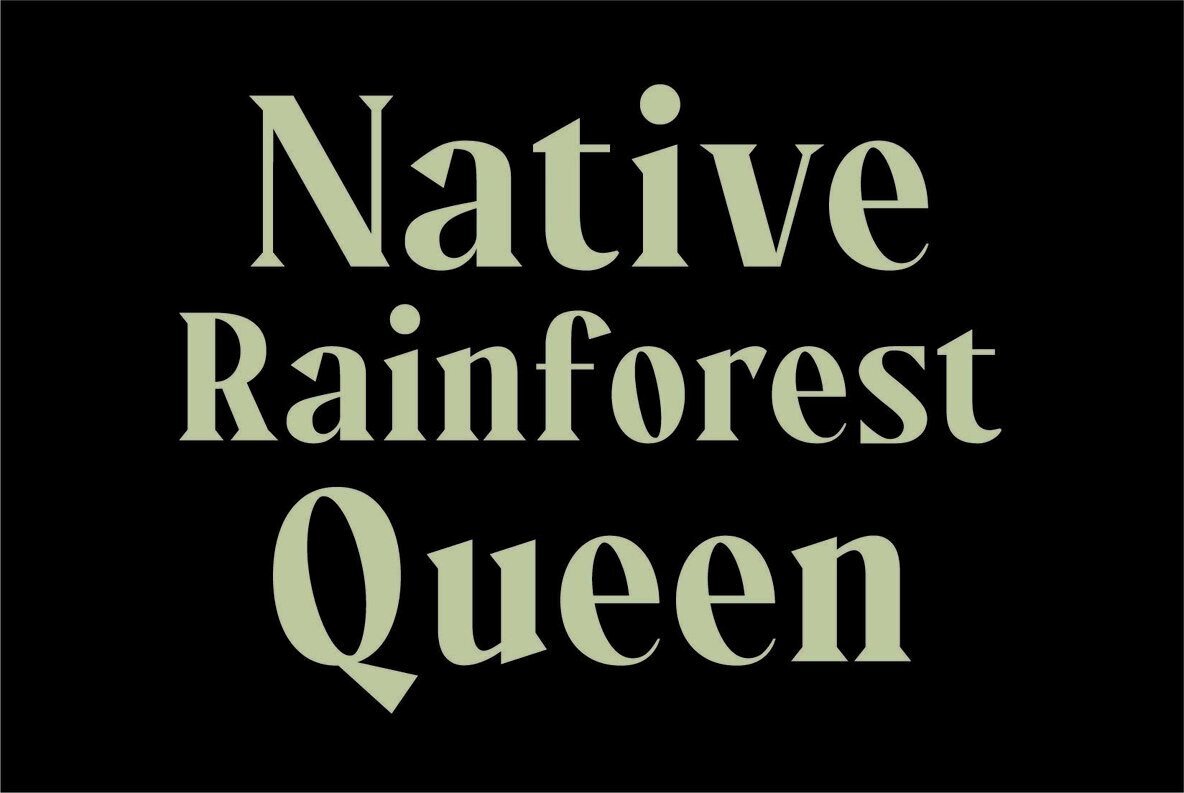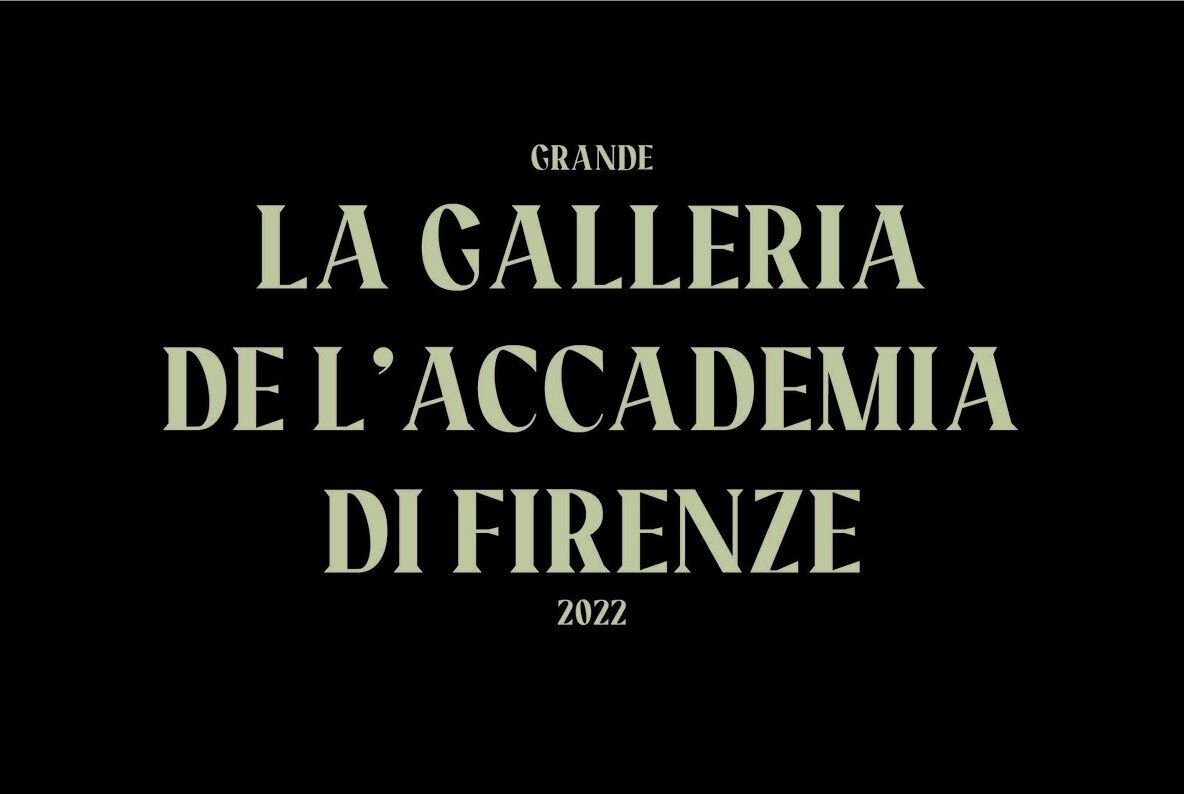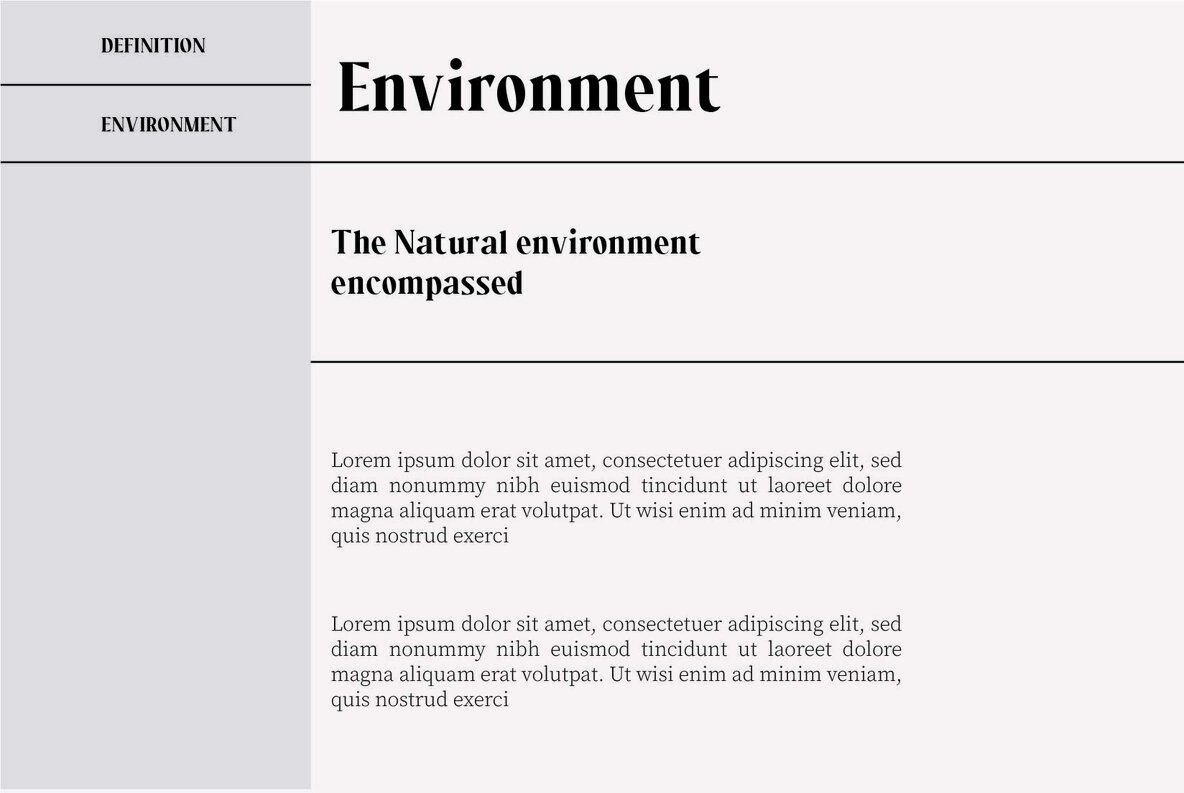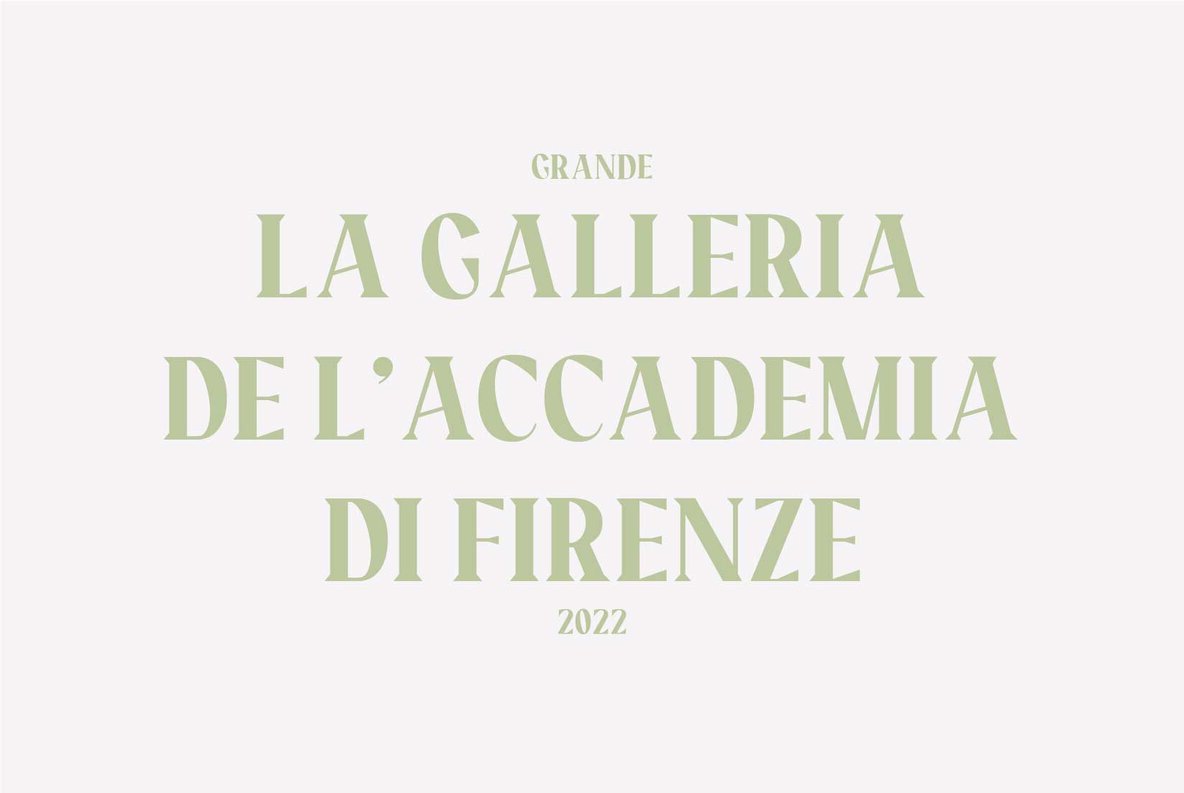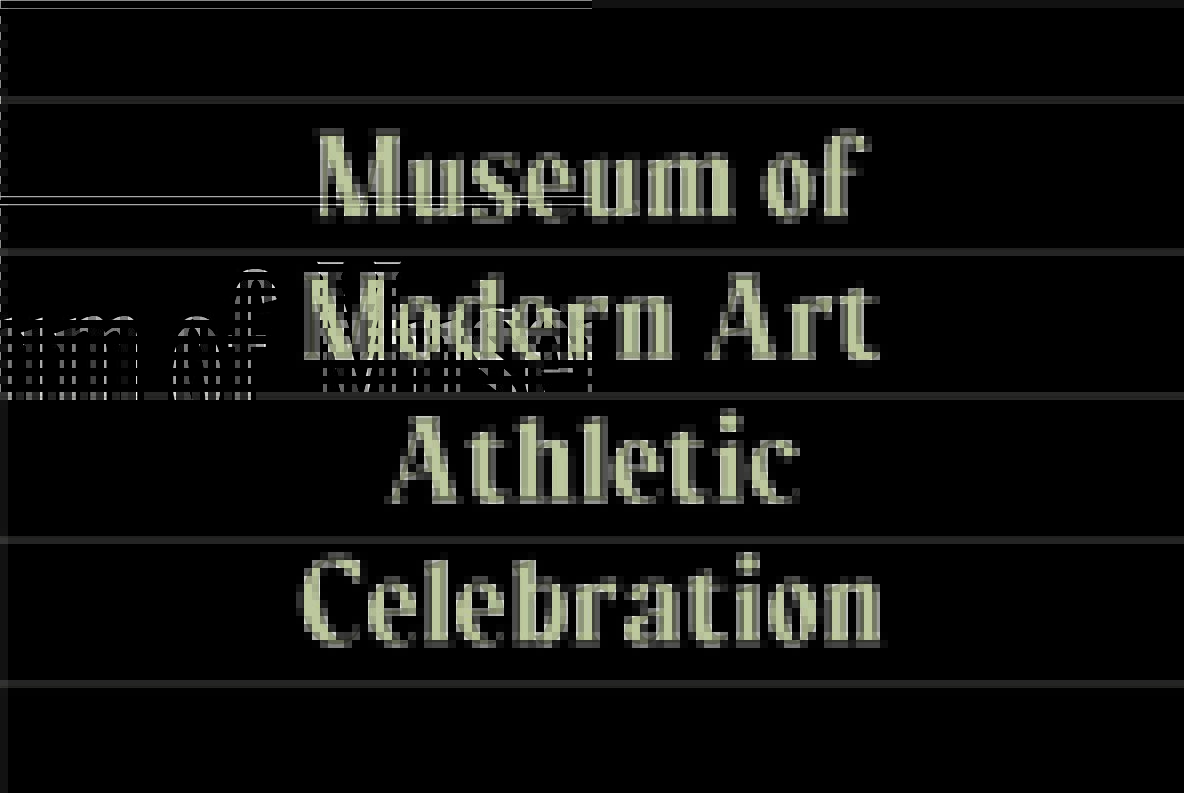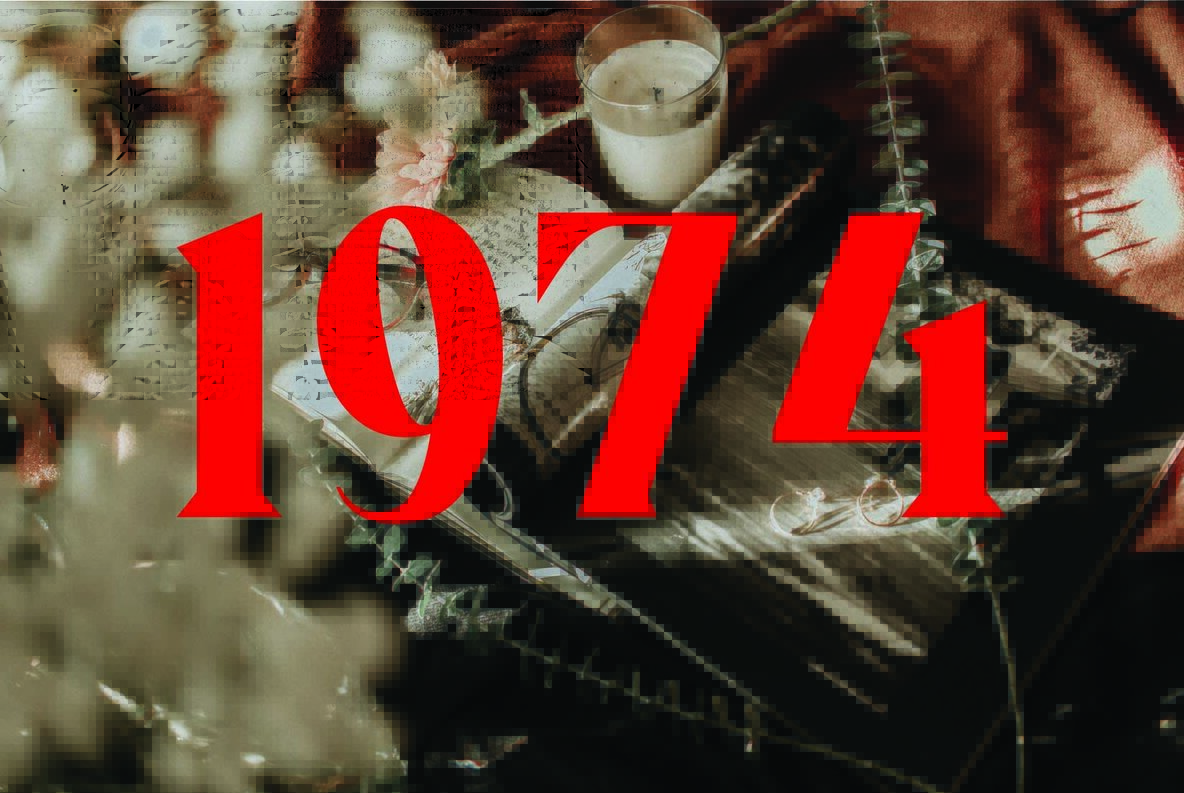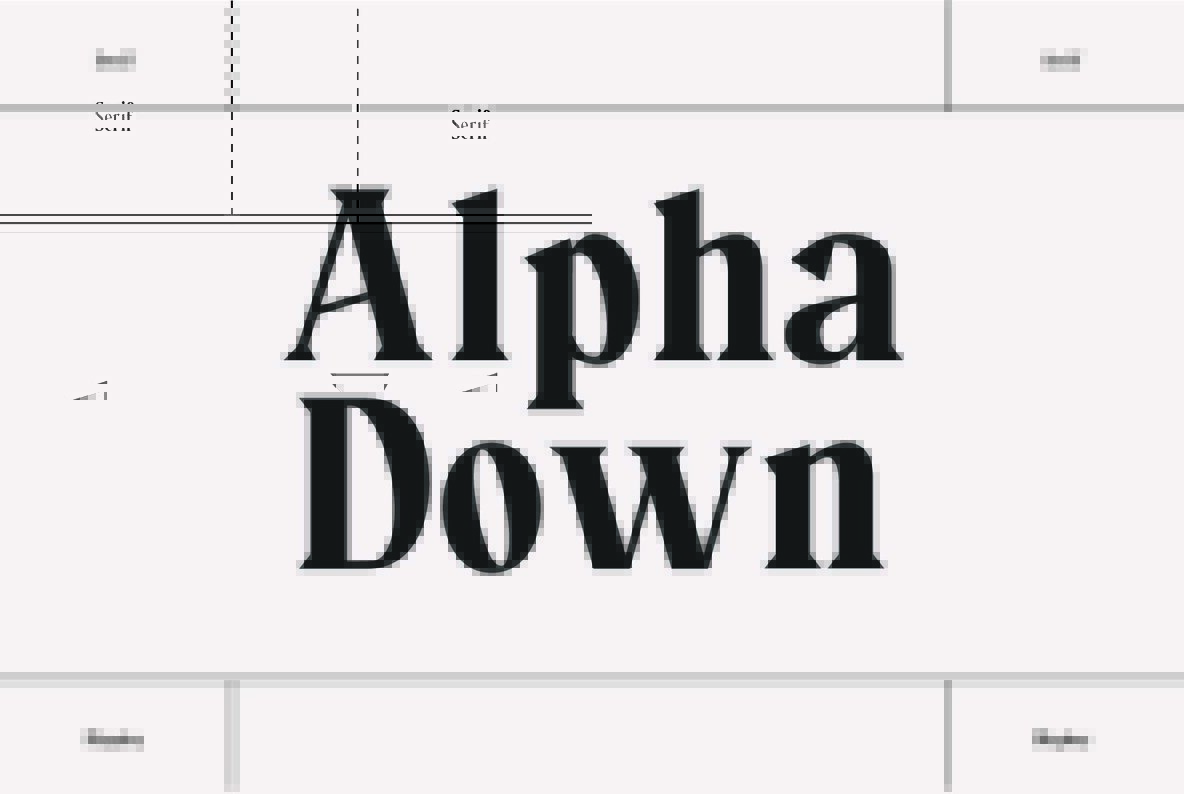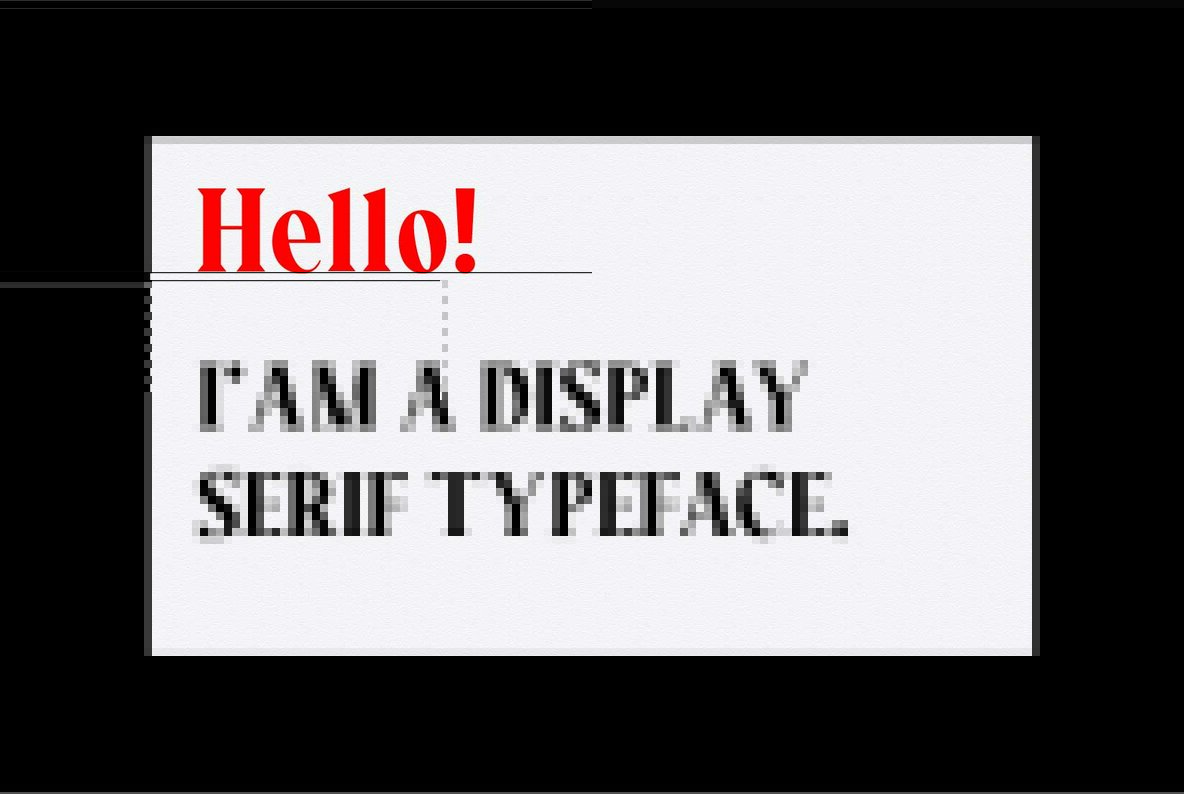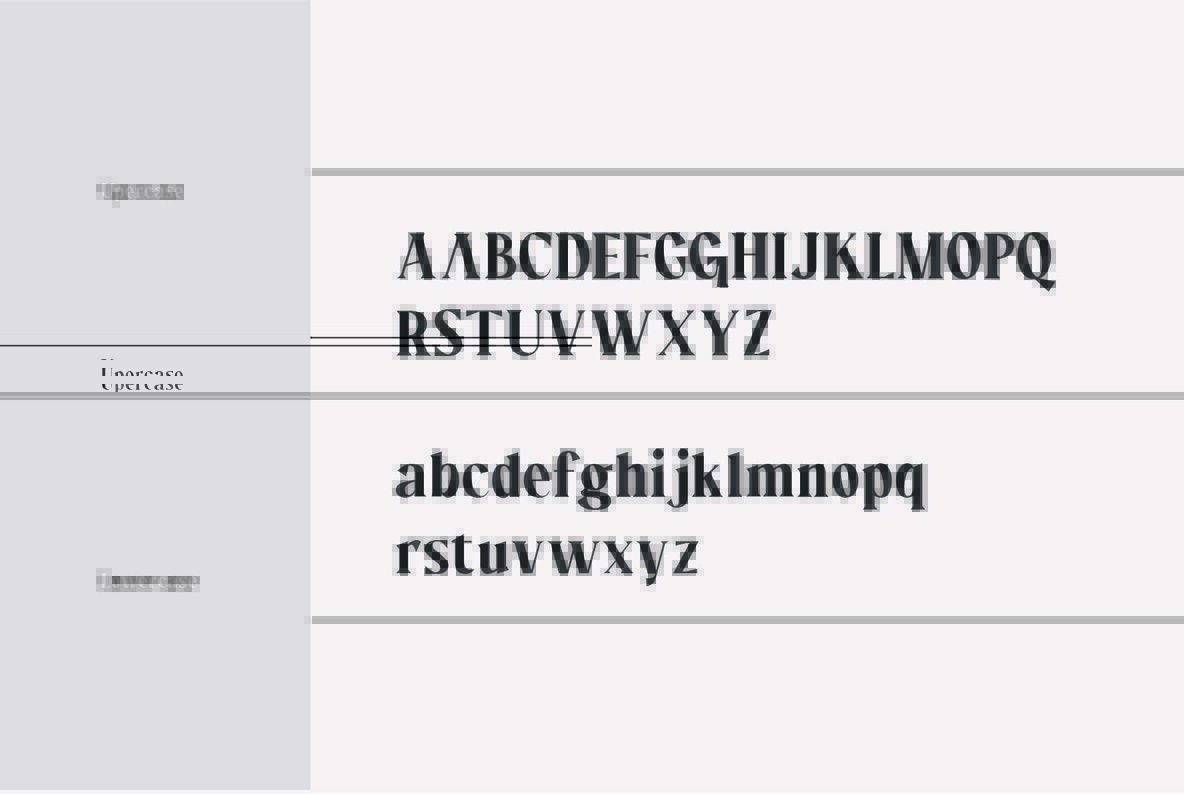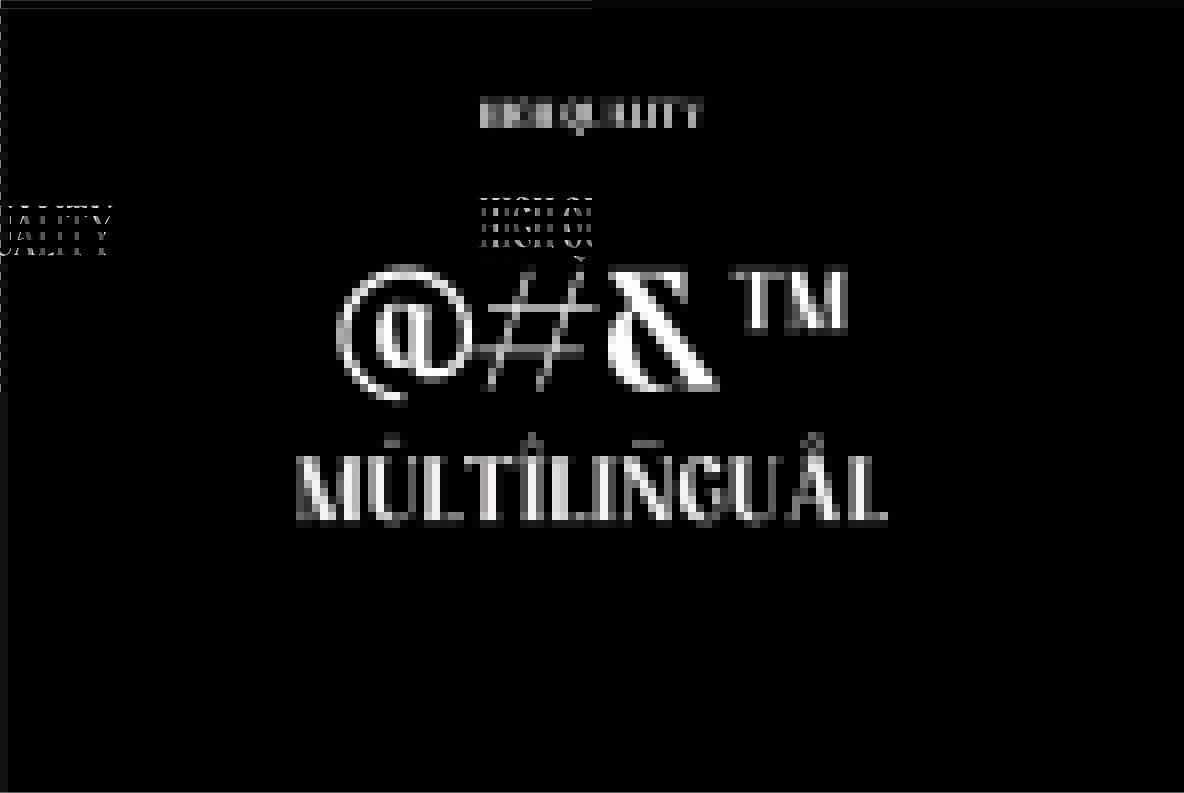
Caspira Font
Caspira Regular
Caspira is an exciting new serif font that will make your content stand out. The typeface has great x-height values, modern proportions and sharp edges with extreme stroke contrast for headlines or titles as well as posters - but it can also be used successfully in small articles where you want more detail than usual on each letterform.